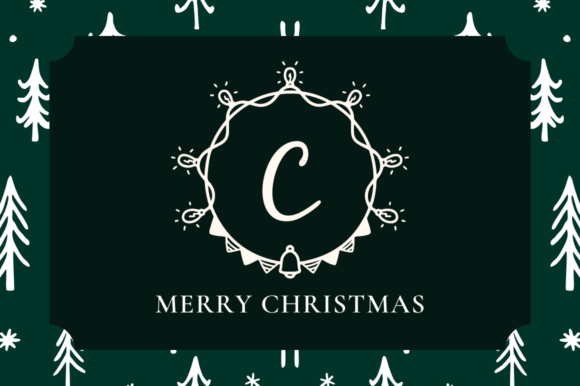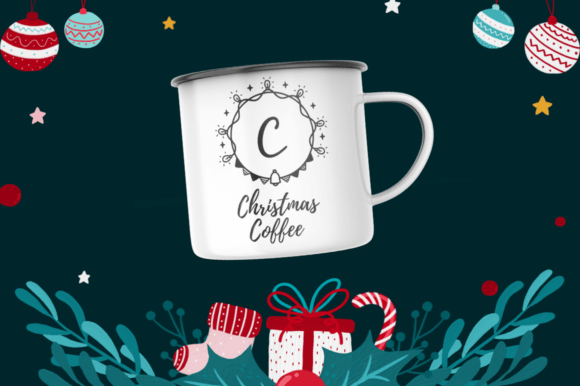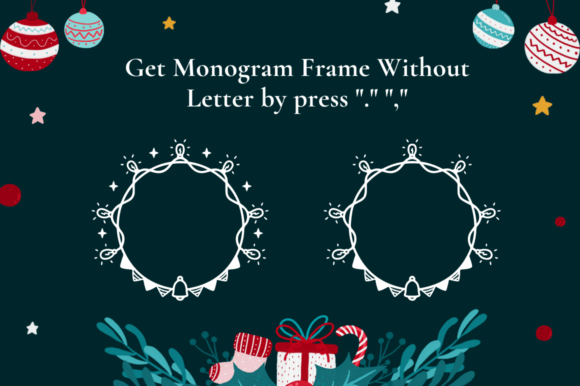
Introduction to Shiny Christmas Monogram Font
It’s that magical time of the year when creativity knows no bounds. You’re browsing through design resources, and suddenly, you stumble upon the perfect font to elevate your holiday project. For designers, finding the right font can make all the difference between a so-so design and a showstopper. That’s where the Shiny Christmas Monogram Font comes in – a high-quality, festive font that’s sure to add a touch of magic to your creative project.
Whether you’re working on a business design, creating a logo for a new brand, or simply want to add a personal touch to your social media posts, this font is a valuable addition to any design resource. Its transparent background and crisp, clean design make it perfect for layering and combining with other elements. And the best part? You can download it for free, making it an accessible and versatile resource for designers of all levels.
Key Features of Shiny Christmas Monogram Font
- Unique and elegant design perfect for creative projects and holiday-themed designs.
- Transparent background allows for easy customization and layering in design projects.
- Comes in a variety of sizes and resolutions, including 300 DPI and 600 DPI.
- Perfect design resource for creating invitations, greeting cards, and other holiday-themed materials.
- Includes a range of monogram styles and designs to suit different tastes and preferences.
Honest Review: Shiny Christmas Monogram Font
What works well: ✨ The font is a high-quality, vector-based design that can be easily scaled up or down without losing any detail. It’s also available with a transparent background, which makes it easy to use in a variety of design scenarios. The font is also very easy to use and install, even for designers who are not experienced with font installation.
Here are some of the features that I liked:
- High-quality, vector-based design
- Available with a transparent background
What could be improved: ⚠️ While the font is great for use on its own, it may not be suitable for use in complex designs that require a lot of customization. Additionally, the font may not be suitable for use in very small sizes, as the details may become difficult to read.
Overall impression: I was very impressed with the Shiny Christmas Monogram Font, and I would definitely recommend it as a design resource for anyone looking for a high-quality, easy-to-use font for their next project.
Q: Is the Shiny Christmas Monogram Font suitable for digital and print use?
Yes, the Shiny Christmas Monogram Font is designed to be versatile and can be used in both digital and print applications. The high-quality vector format ensures that it scales well for large print projects, while the transparent background makes it easy to use in digital designs.